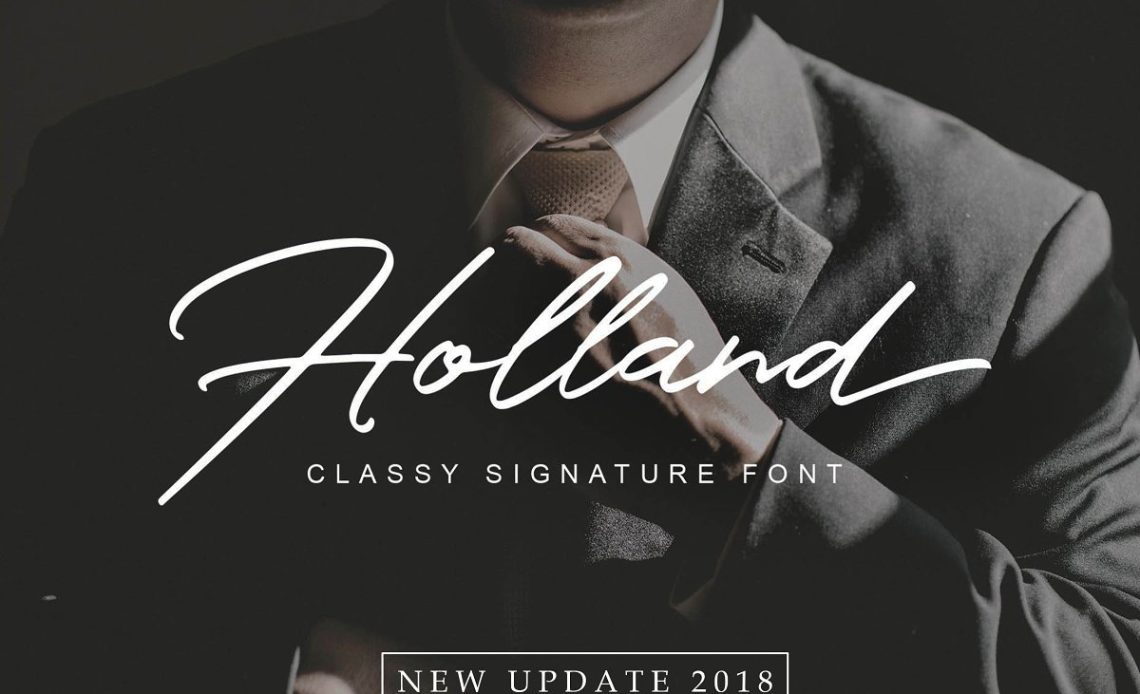
Introducing the Holland Elegant Font Collection, a set of beautifully crafted fonts perfect for all your design needs! This collection is the brainchild of the talented Muhammad Sirojuddin, who has created a set of fonts that are both modern and timeless.
The Holland Script font is the star of the collection, with its stunning modern script that is perfect for photography, branding, and signatures. It exudes elegance, class, and strength, all at the same time. This font is a must-have for anyone looking to elevate their designs.
But that's not all! The Holland Elegant Font Collection now includes four fonts, with the addition of the new Holland Monoline font. The Holland Monoline Clean and Rough fonts are perfect for those who love a more vintage or retro vibe. They are both versatile and can be used in a variety of projects.
Each font in the Holland Elegant Font Collection includes ligatures, initial forms, and swashes, allowing you to add an extra touch of style and sophistication to your designs. Whether you're designing a logo, a wedding invitation, or a social media post, the Holland Elegant Font Collection has got you covered.
In conclusion, the Holland Elegant Font Collection is a must-have for anyone looking to add a touch of elegance, class, and sophistication to their designs. With its versatile fonts and extra touches of style, this collection is perfect for all your design needs!